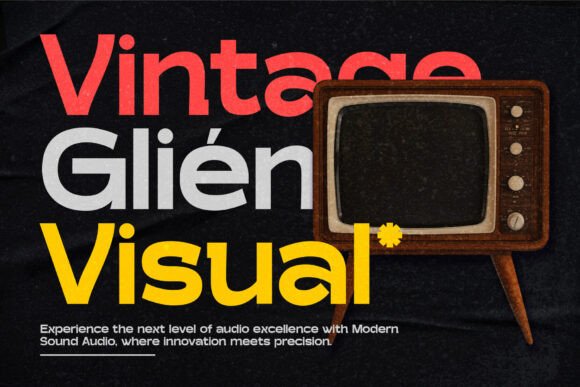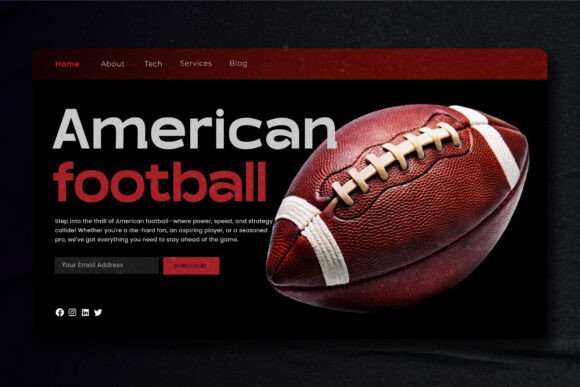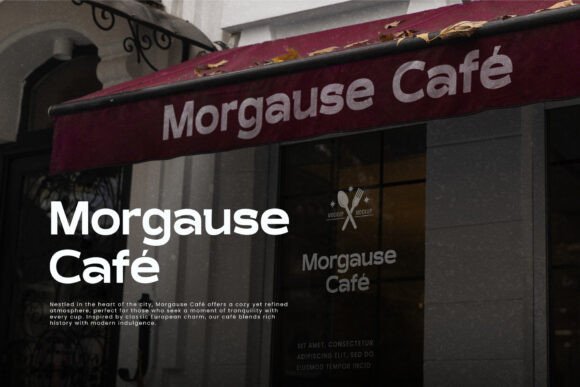
Welcome Grapiso, a streamlined, chic sans serif font styled to inject an innovative and remarkable charm to your creations.
Its uncluttered lines and up-to-the-minute flair render Grapiso an unparalleled selection for those on a quest for a one-of-a-kind yet top-drawer allure Perfectly suited for evolving logos, websites and posters into dazzling pieces of art while enhancing branding, web design, or social media promotions and even making sports posters come alive with vigour.